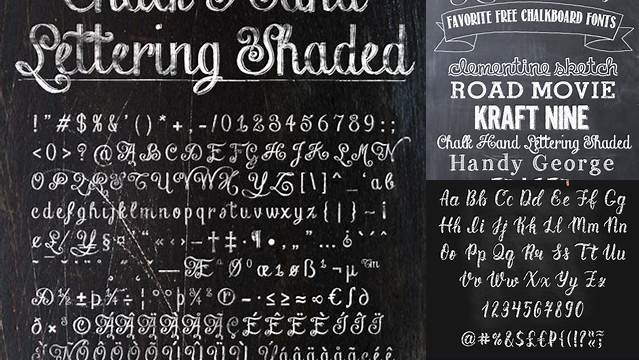
Free Chalk Hand Lettering Fonts: Download & Inspiration
Hey guys! Ever admired those stunning chalk hand lettering designs you see on coffee shop menus or in trendy boutiques? They've got this awesome, rustic vibe that just pulls you in, right? Well, if you're like me and have been itching to try your hand at creating these yourself, you're in luck! This article is all about chalk hand lettering fonts, and the best part? Free downloads galore! We'll dive into where to find them, how to use them, and even some cool tips to get your creative juices flowing. So, grab a pen (or your digital stylus), and let's get started!
Finding Your Perfect Chalk Font: Free Download Resources
First up, Font Squirrel is a fantastic place to start. They have a curated selection of high-quality, free fonts, and you can easily filter by style, including "chalk" or "handwritten." Their website is user-friendly, and you'll find some real gems there. Next, explore Google Fonts. While not exclusively chalk fonts, Google Fonts offers a vast library of free, open-source fonts, and you can definitely find styles that mimic the chalk lettering aesthetic. Plus, the benefit of Google Fonts is that they're incredibly easy to use on websites. Just embed them, and you're good to go! Also, don't forget to check out websites like DaFont and BeFonts. These sites are a bit like the wild west of fonts—you'll find a massive variety, but be sure to check the licensing carefully. They often have a dedicated "handwritten" or "chalk" category, making your search easier.
When you're browsing for chalk hand lettering fonts, keep an eye out for fonts with variations. Some fonts offer different weights or styles, like regular, bold, or even outlines, which gives you more flexibility in your designs. Some fonts might include extras like swashes or alternative characters, which can add a unique touch to your lettering. Consider what kind of feel you want to achieve: a smooth, clean chalk look? Or a more textured, rough style? These details can significantly impact the overall look and feel of your lettering. Also, think about where you'll be using the font. Is it for a website, a print project, or social media? This can influence the font you choose, as some fonts are better suited for certain applications than others. For instance, a very intricate font might look beautiful on a poster but become illegible at a small size on a website. And finally, always test the font before you commit to using it. Download the font, install it, and try it out with different words and phrases to see how it looks. It is better to see if it's the right fit.
Tips for Using Chalk Lettering Fonts Effectively
So, you've found your dream chalk hand lettering font and downloaded it. Awesome! But how do you actually use it to create stunning designs? It is easier than you think! There are a few essential tips to consider before you start creating.
When you're designing, consider the background. Chalk lettering often looks fantastic against dark backgrounds, like black, navy, or deep green. This helps the lighter chalk-style font really pop. If you're using a light background, you might want to adjust the font's color to something darker, like a charcoal gray or a deep brown. Play around with color palettes. Chalk lettering isn't always just about white on black. Experiment with different color combinations to create a unique look. Think about the overall mood you want to convey and choose colors that match that vibe. Use the fonts to highlight the important message. You can do this by using different weights, styles, and sizes of the same font, or by pairing your chalk font with a more straightforward, readable font for body text. Think about the composition of your design. How will the text be arranged on the page? Will you center it, use it at the top, or arrange it in an interesting pattern? Make sure there is enough space between the letters, words, and lines of text to make the lettering easy to read. Also, don't be afraid to experiment with effects. In your design software, you can often add effects like drop shadows, outlines, or textures to your chalk lettering to give it more depth and realism. It can create a perfect final touch!
Inspiring Projects to Showcase Your Chalk Lettering Skills
Ready to put your chalk hand lettering font to good use? Here are some project ideas to get you started and showcase your skills! These ideas include a variety of options for your projects. You can start a small project that will help you improve your skills.
- Design social media graphics: Social media is a great place to show off your lettering. Create quotes, announcements, or promotional posts using your chalk font. Consider creating a consistent brand style with your chosen font. You can add your own touches, such as illustrations or other design elements, to make your graphics stand out. This is a great way to engage with your audience and showcase your unique style.
- Create posters and wall art: Design motivational quotes, song lyrics, or even custom illustrations using your chalk lettering font. Consider selling your designs online or printing them for personal use. For printing, make sure you have a high-resolution file of your design so that the print is clear and crisp. You can also explore different paper types to enhance the look of your art, like textured paper or matte paper.
- Craft personalized cards and invitations: Use your chalk font to create beautiful cards for birthdays, holidays, or special events. This is a fantastic way to add a personal touch and make your cards unique. You can combine your chalk font with other fonts, colors, and design elements to create designs that perfectly match the occasion. Consider creating matching envelopes or adding handmade details to your cards for an extra special touch.
So, there you have it, guys! A deep dive into the world of chalk hand lettering fonts. From finding free downloads to using them effectively in your designs, I hope this article has inspired you to get creative. Remember, the most important thing is to have fun and experiment! Don't be afraid to try different fonts, colors, and styles. The more you practice, the better you'll become. And who knows, maybe your chalk lettering skills will lead to your next big project!